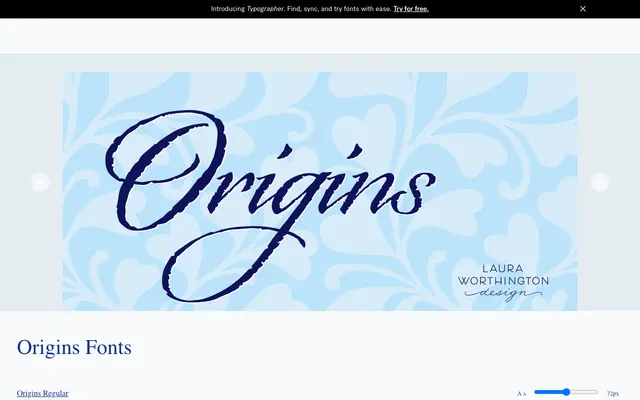
Origins
A crow quill calligraphic script with angular energy and an extensive set of swashes, alternates and ornaments suited to food, wine and occasion-based branding.
Drawn by hand on parchment using a crow quill, Origins brings tight angular letterforms together with swooping swash capitals, alternate ascenders and descenders, and purpose-built ending characters. The family ships in two variants — Regular and Smooth — and includes 120 alternates and swashes, 8 ligatures and 20 ornaments, all accessible without professional design software. It suits applications in food and drink, travel, celebrations and heritage-themed work.
Origins is drawn from crow quill calligraphy on parchment, with angular letterforms, swash capitals and ornamental characters — firmly a calligraphic script typeface with an antique character.